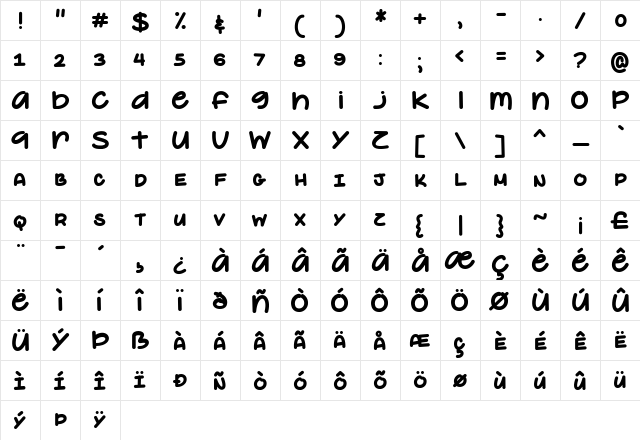
Elephant Ears Demo Regular
Design Context for Elephant Ears Demo Typeface
Elephant Ears Demo is a composed and adaptable typeface that performs quietly and consistently across a wide range of design contexts.
Pro Tip: Use Elephant Ears Demo in both headline and body roles to test its range before committing to a single application.